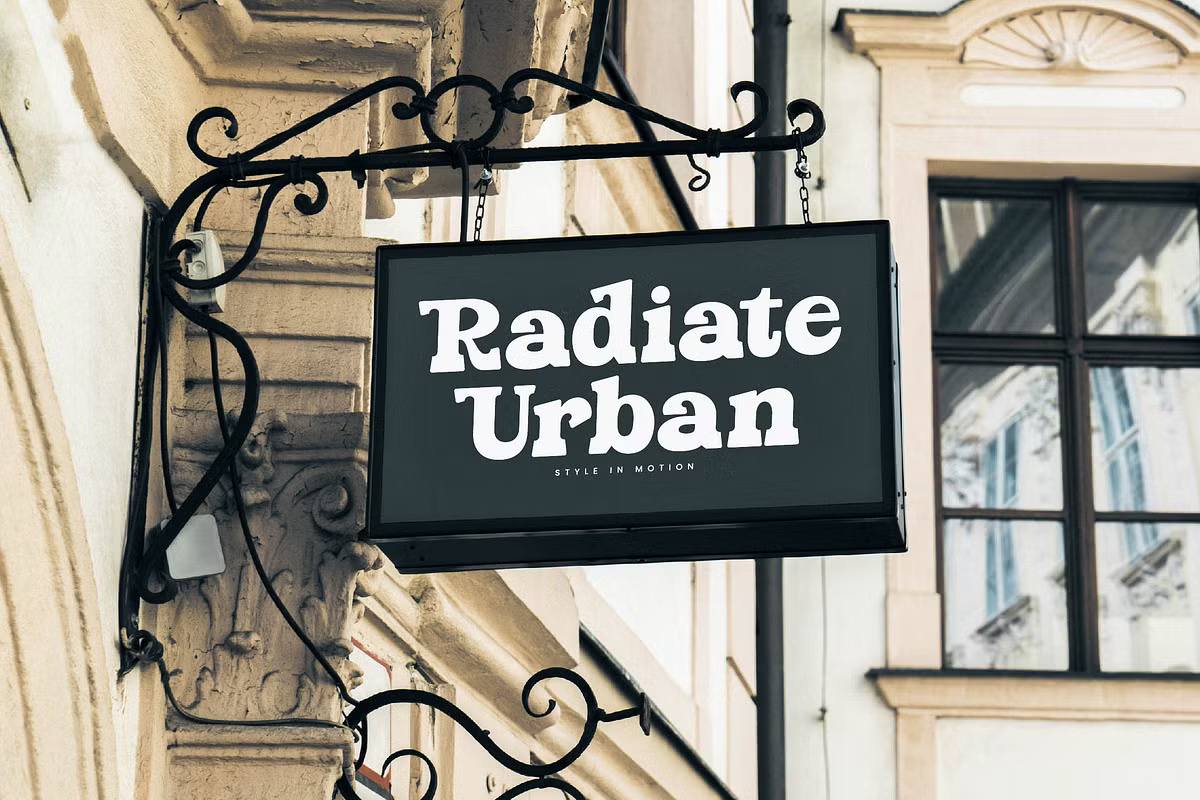
Parfect Silent Font
Parfect Silent is a modern, bold slab serif typeface from Timelesstype.Co. Its strong and stylish design makes it perfect for a variety of projects, including logos, branding, homeware designs, product packaging, mugs, quotes, posters, shopping bags, t-shirts, book covers, business cards, invitations, greeting cards, labels, photography, watermarks, special events, and any other elegant or luxurious designs.